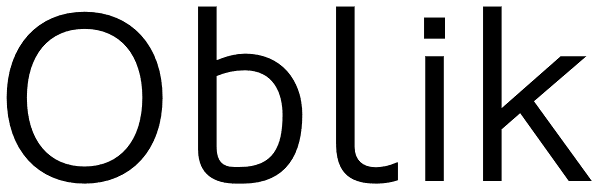
Oblik
Like Refused said in their song ”The Shape of new Punk to come”, Oblik could be “The Shape of new Fonts to come”, we present you our uprising star - Oblik - that could shine in your monitors. Modern family, stylish and secure, with its own...